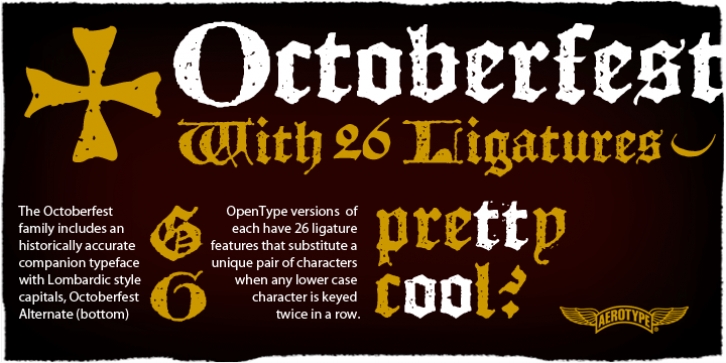
Publisher: Aerotype
Based on a fifteenth century Textura Blackletter typeface, Octoberfest has an historically accurate companion with Lombardic style capitals, Octoberfest Alternate. Both feature a Germanic cross icon as the asterisk character. The OpenType versions of Octoberfest and Lombardic Octoberfest Alternate have 26 ligature features that automatically substitute a subtly unique pair of distressed characters when any lower case character is keyed twice in a row. The Pro versions of Octoberfest and Octoberfest Alternate extend the character set to support Eastern European and Baltic languages.